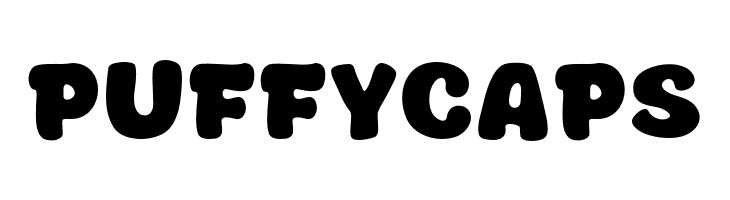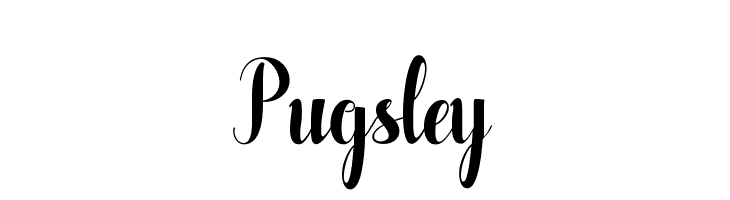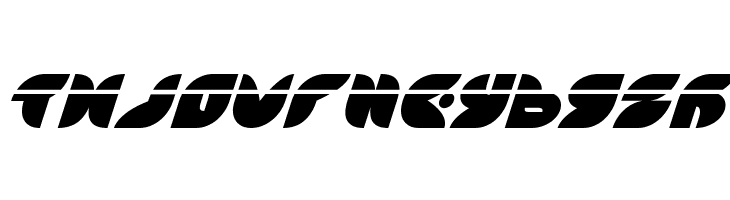
• Puffy Caps шрифт
A playful, bold font with rounded, puffy characters ideal for fun and creative projects.
• Puffy Dreamland шрифт
A playful, bubble-like font with interconnected circular designs for a whimsical look.
• Puffy Regular шрифт
• Pugsley шрифт
An elegant script font with flowing, interconnected letters and ornate flourishes.
• Pugsley Oblique шрифт
A playful, oblique font with decorative elements and dynamic style.
• Pugsley Upright шрифт
A whimsical and decorative font with playful embellishments and flowing forms.
• Puisi Adinda шрифт
A bold, handwritten font with a playful and energetic style.
• Pukas Regular шрифт
A bold, modern font with geometric shapes and striking contrast.
• Puke шрифт
• Puke Force 8 Regular шрифт
A pixelated, blocky font with a retro digital aesthetic.